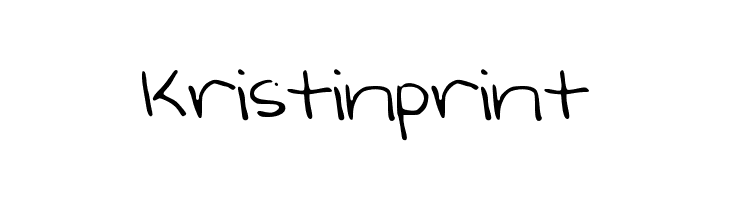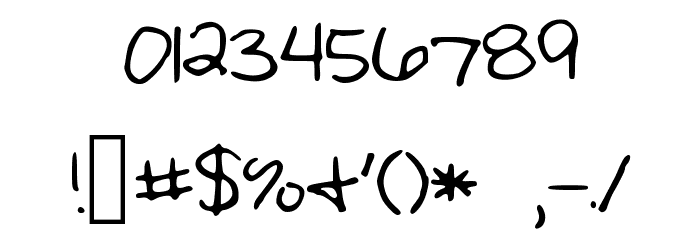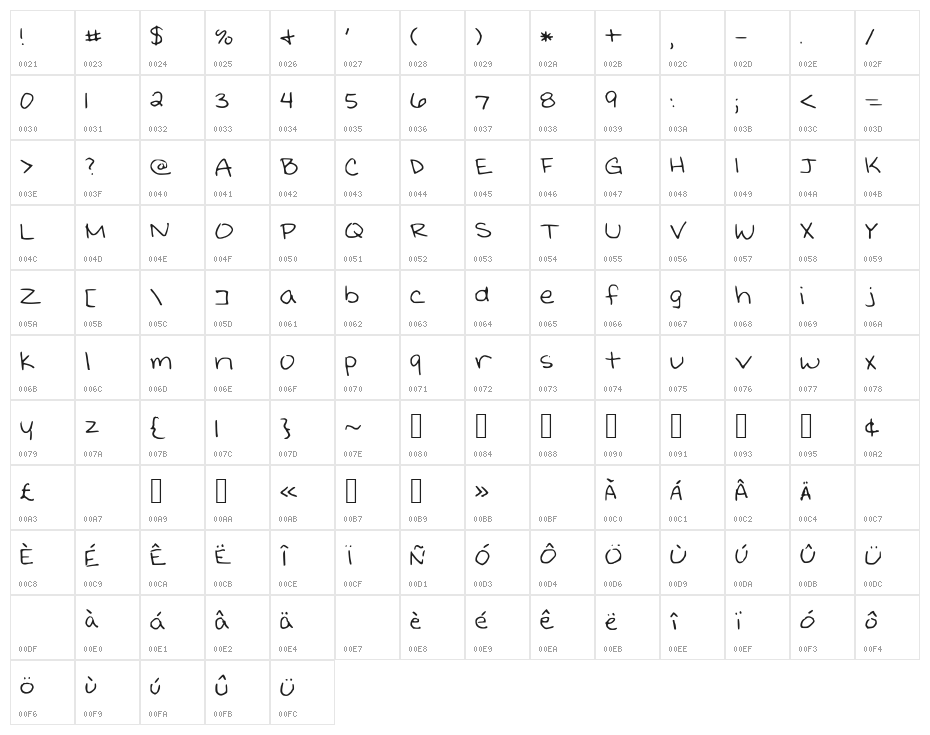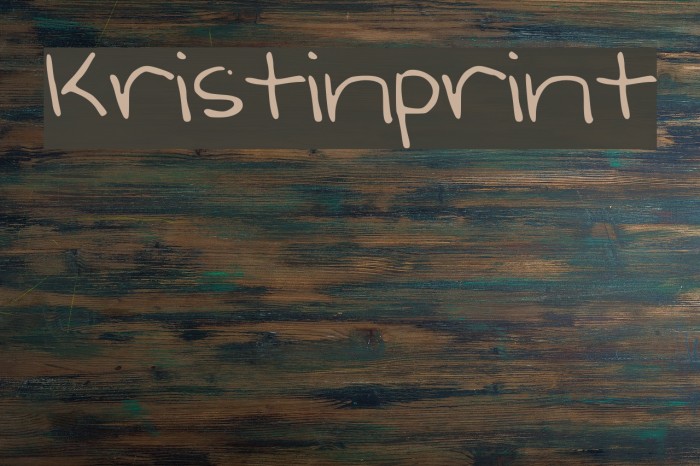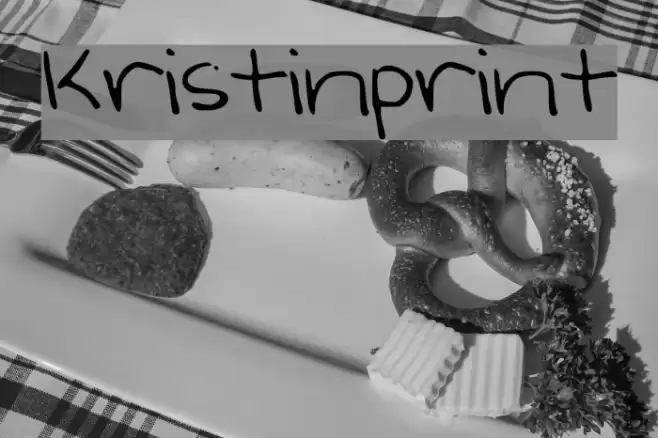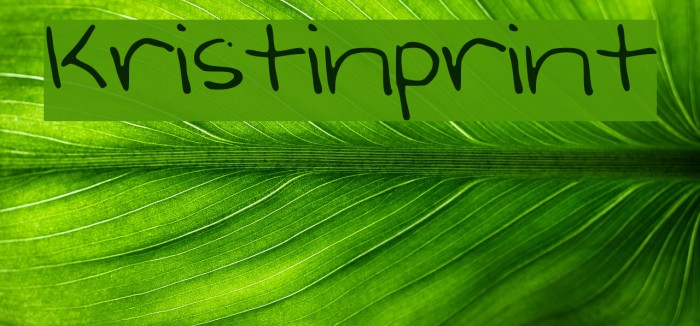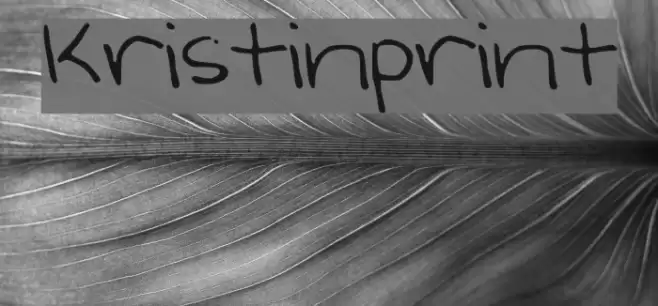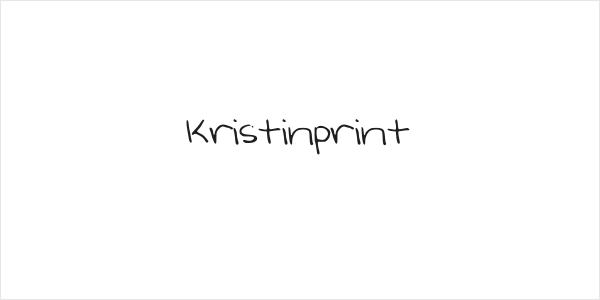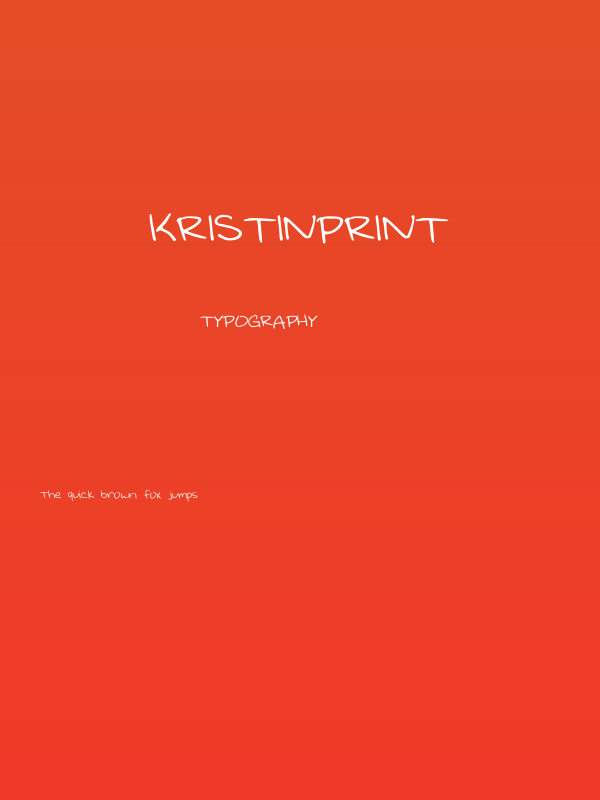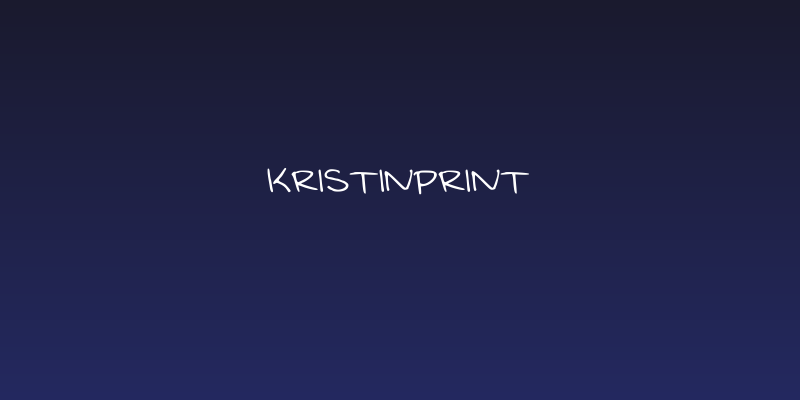
Kristinprint Font
Kristinprint Description
This playful and casual font features a handwritten style that exudes a sense of friendliness and approachability. The characters are slightly irregular, with a natural flow that mimics the look of handwriting. The strokes are consistent in width, giving the font a uniform appearance while maintaining its informal charm. The uppercase and lowercase letters are well-balanced, and the numerals and special characters are clearly legible, making it versatile for various uses. The font's overall style is relaxed and inviting, perfect for projects that require a personal touch.
| Use Case | Headlines, Informal text, Personal projects |
| Proposed Projects | Ideal for greeting cards, children's books, personal blogs, and informal branding. |